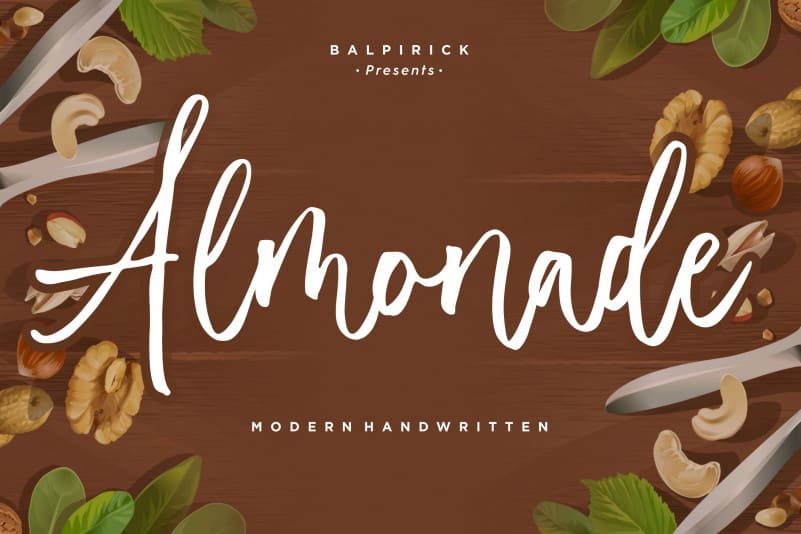
Almonade Modern Handwritten Font
Almonade Font is a new modern handwritten Script fonts, combines from copperplate to contemporary typeface, classic and elegant touch.
Almonade is guaranteed to make your text stand out – perfect for logos, printed quotes, invitations, cards, product packaging, headers and whatever your imagination holds.
Almonade is suitable for apparel brand, any greeting cards, painting design style, or any design that needs natural and personal touch. Mix and match the alternate characters to add an attractive message to your design.